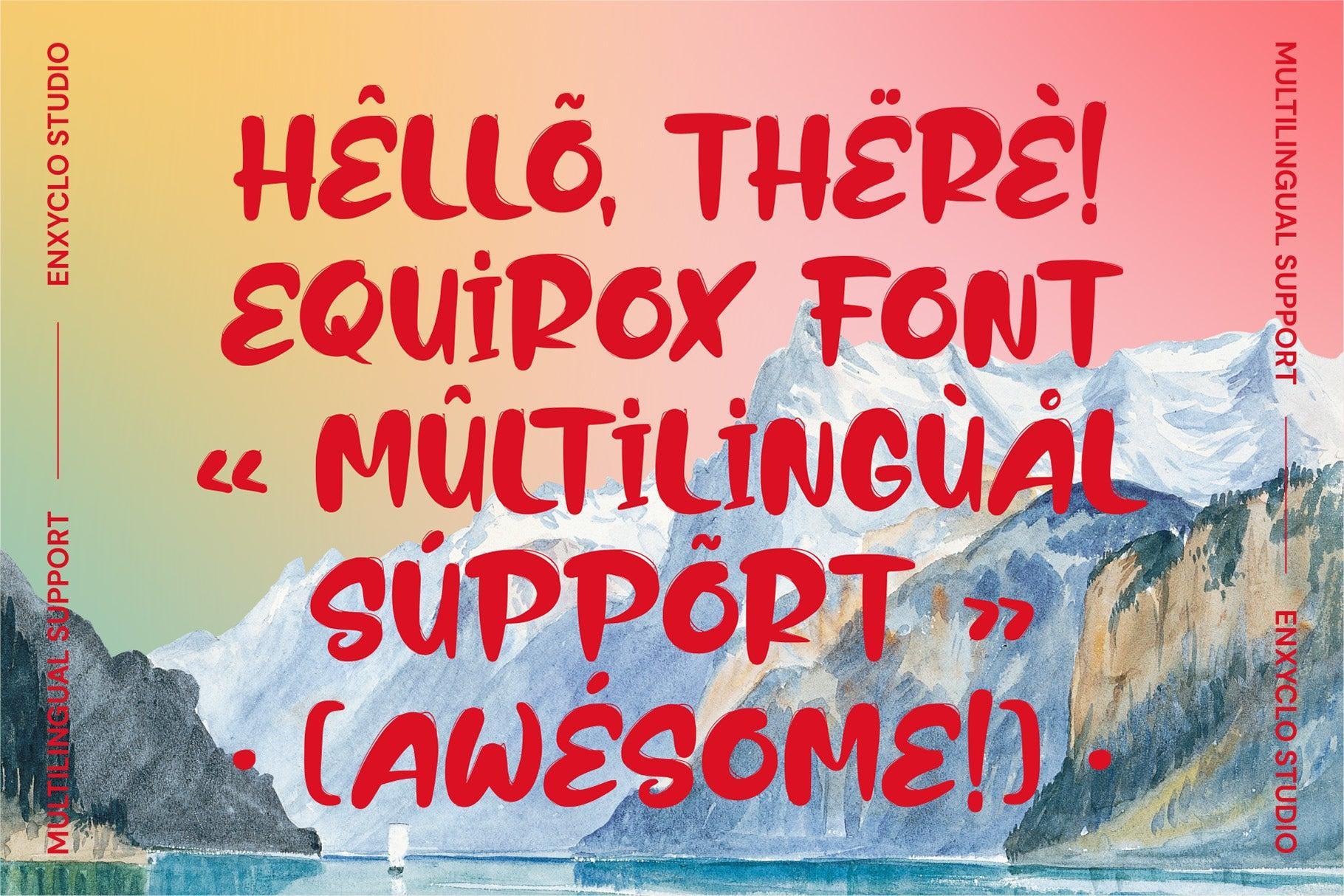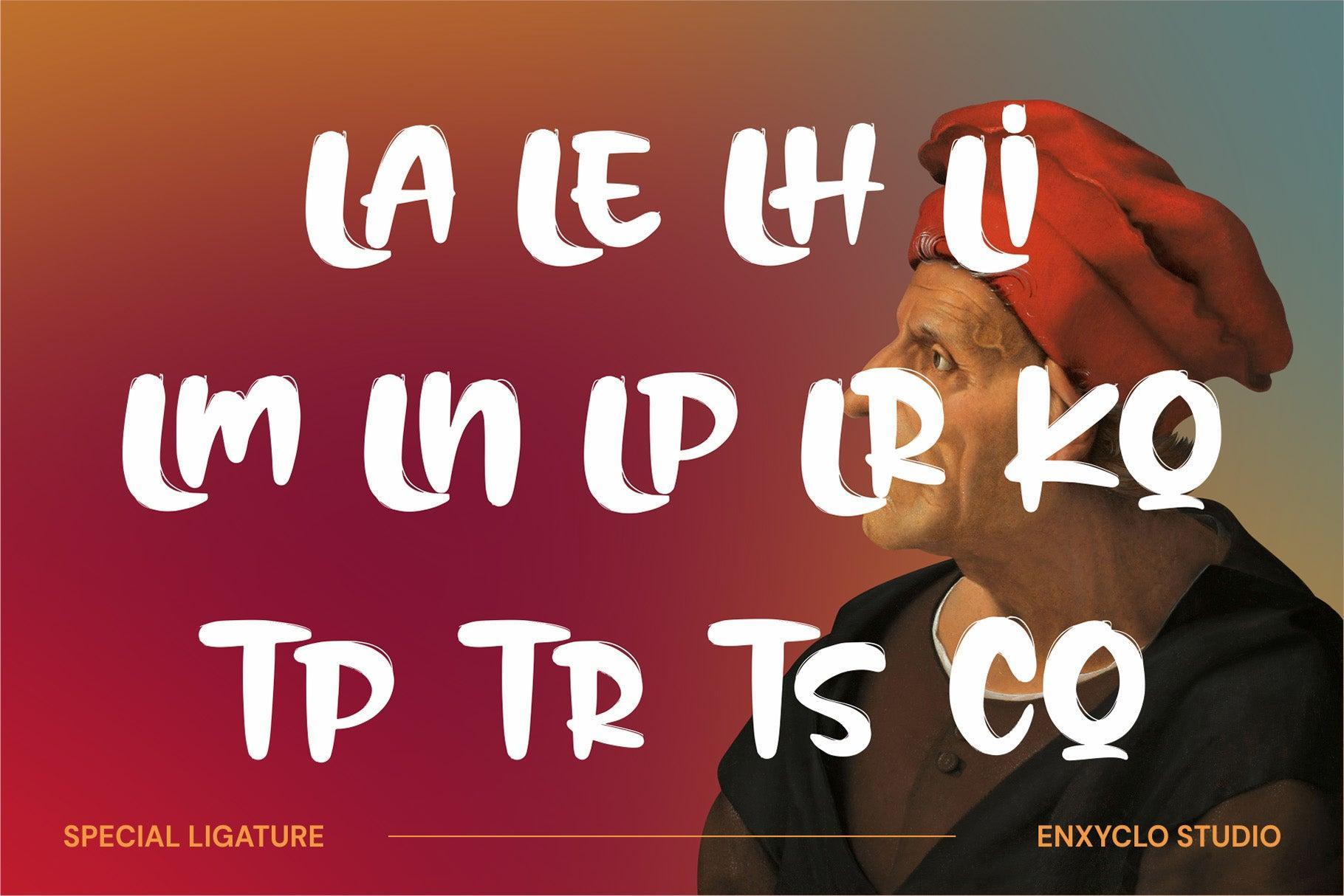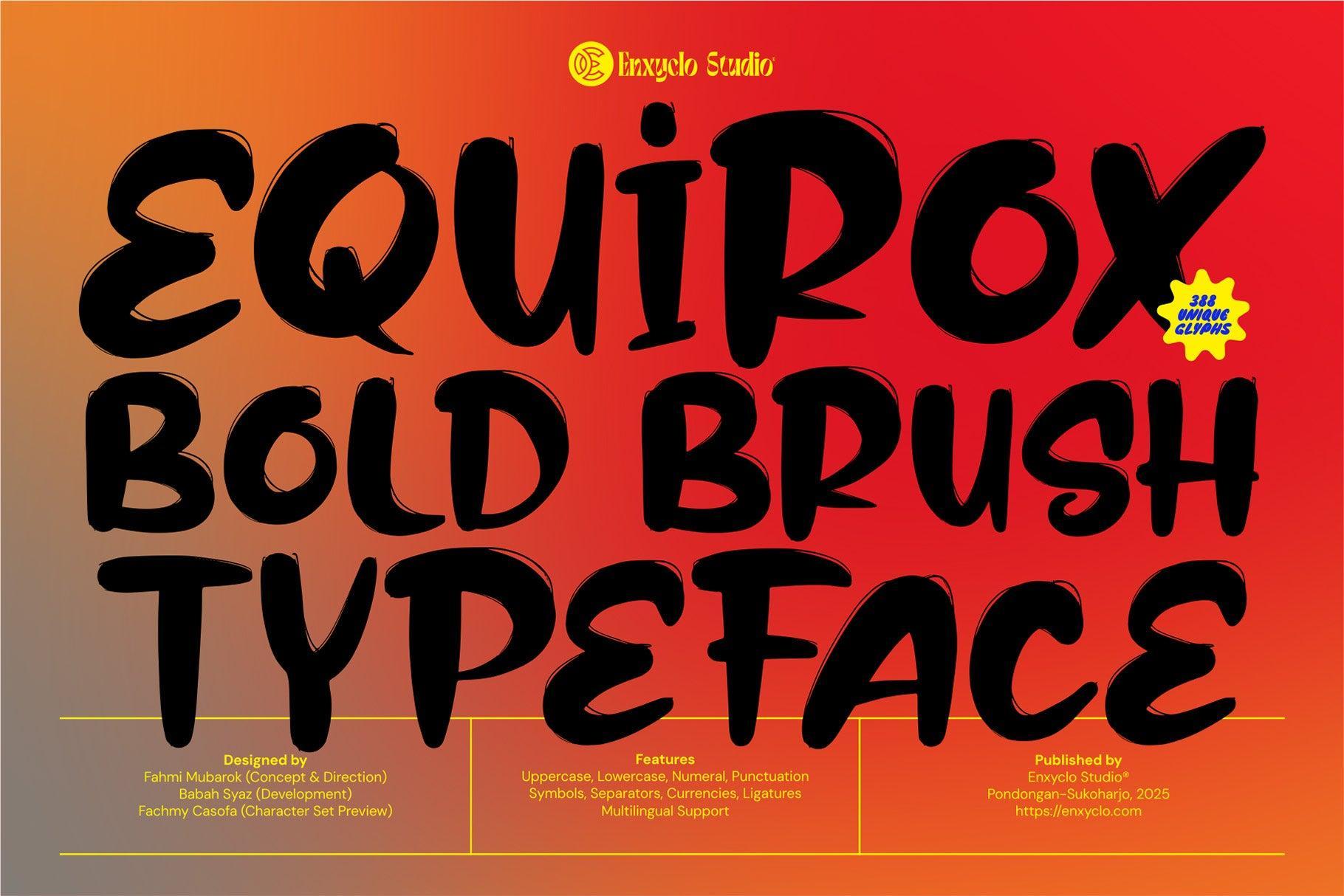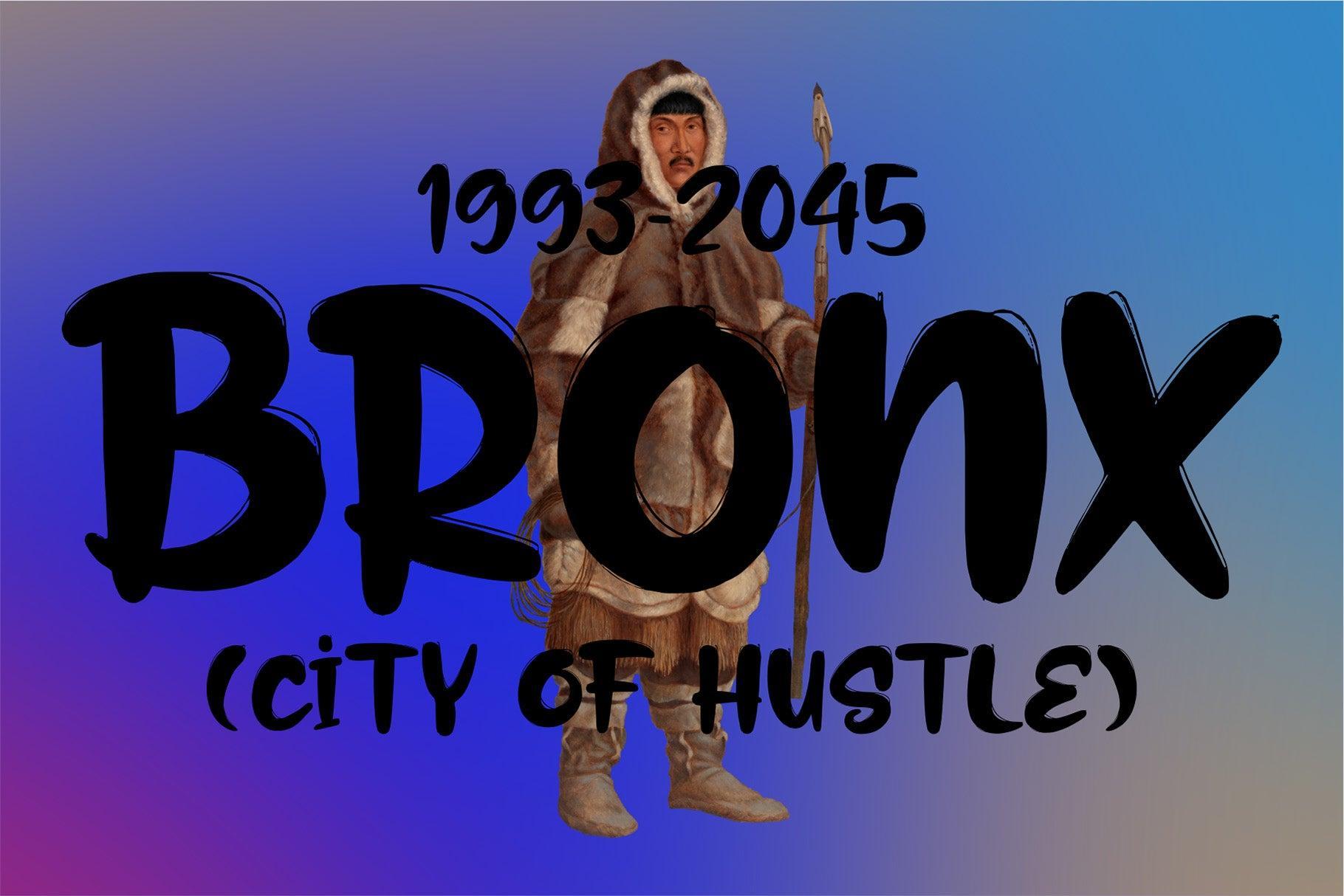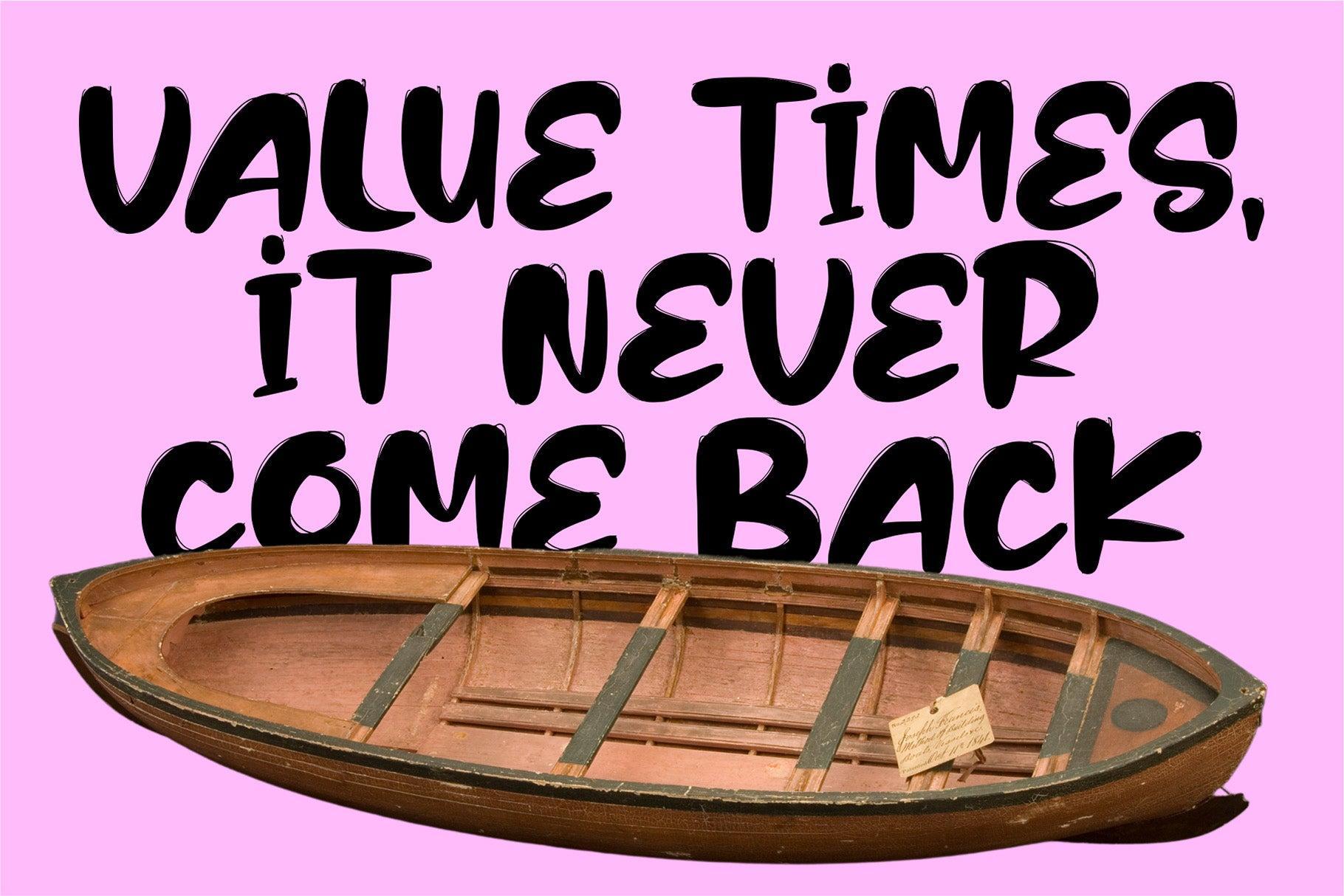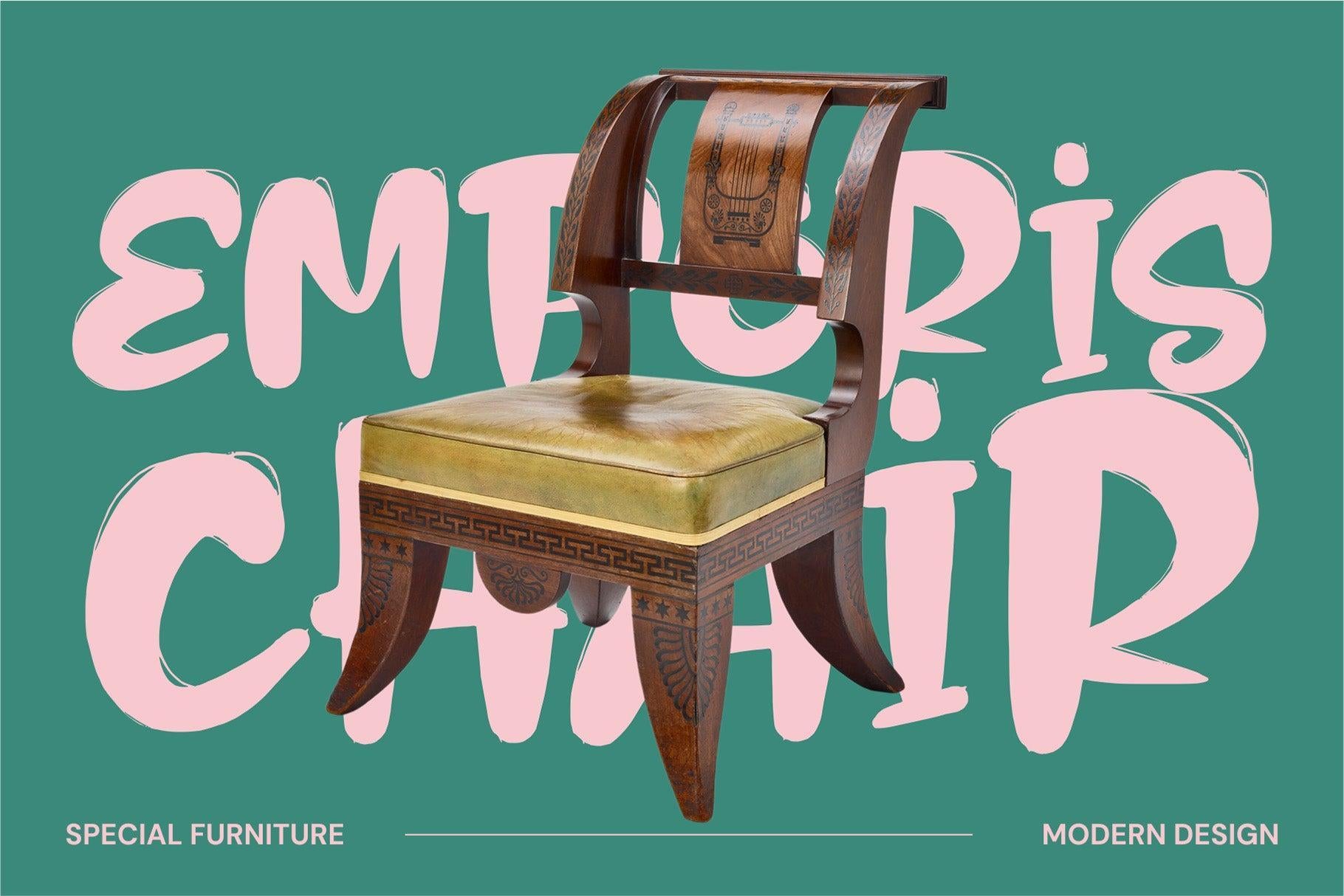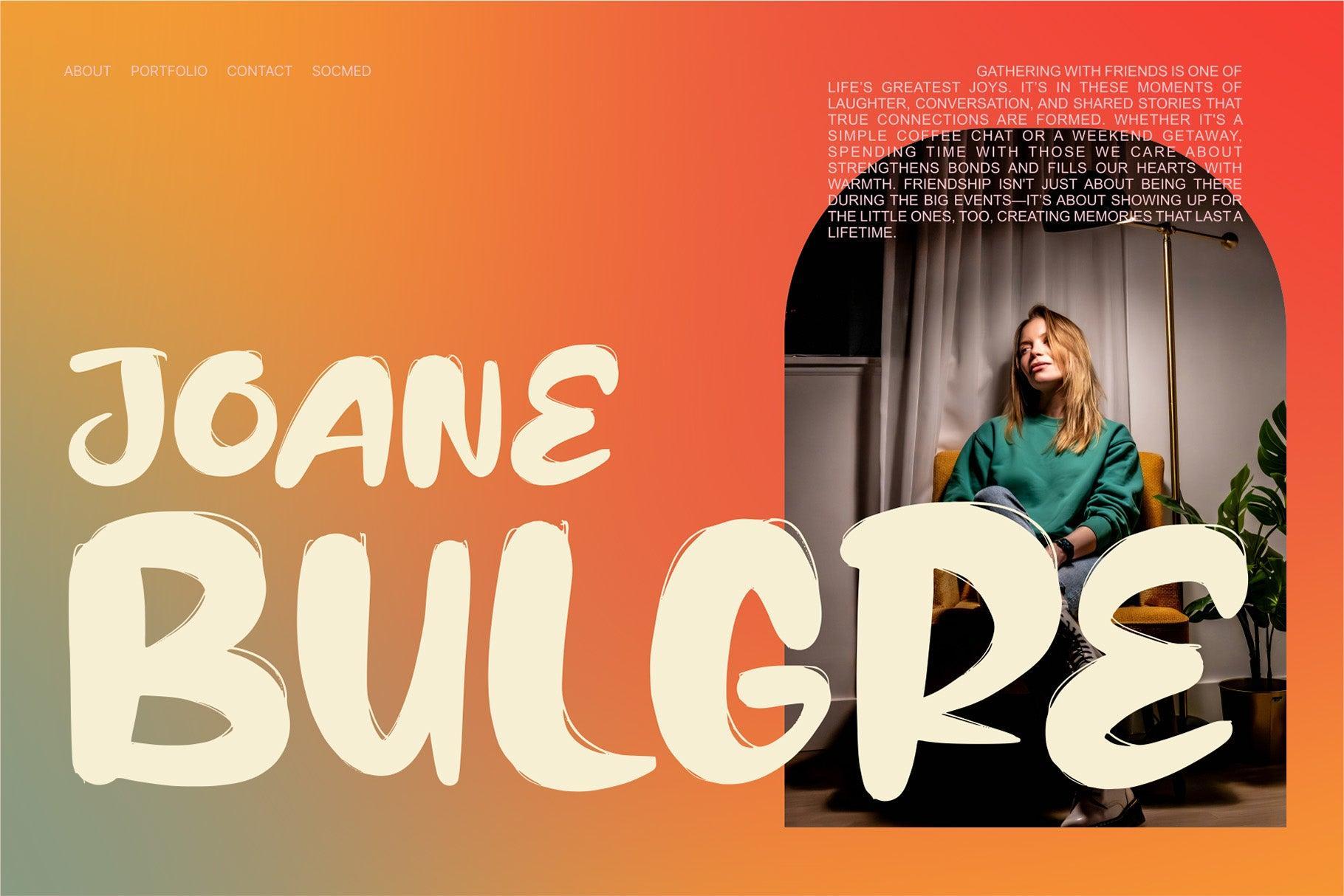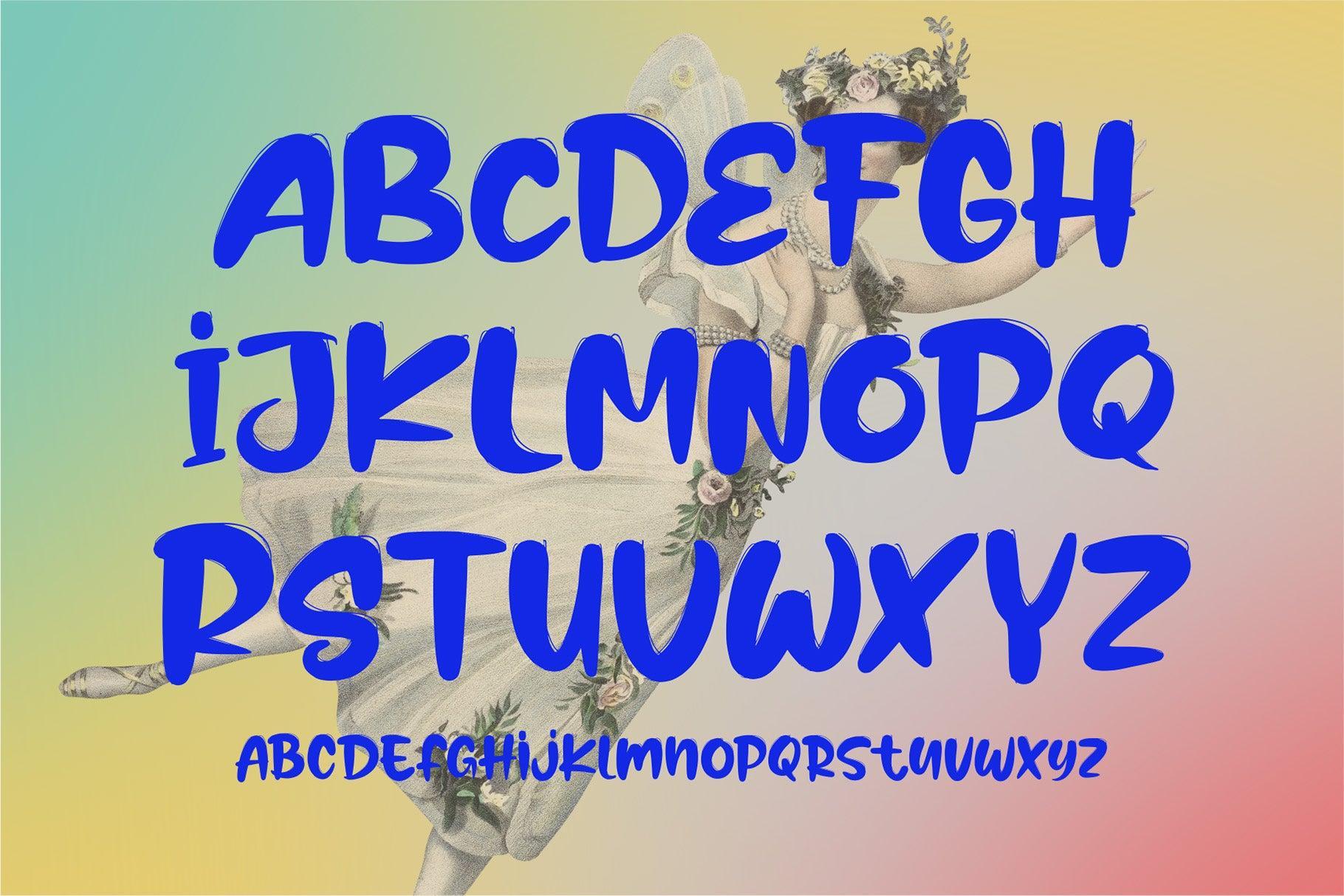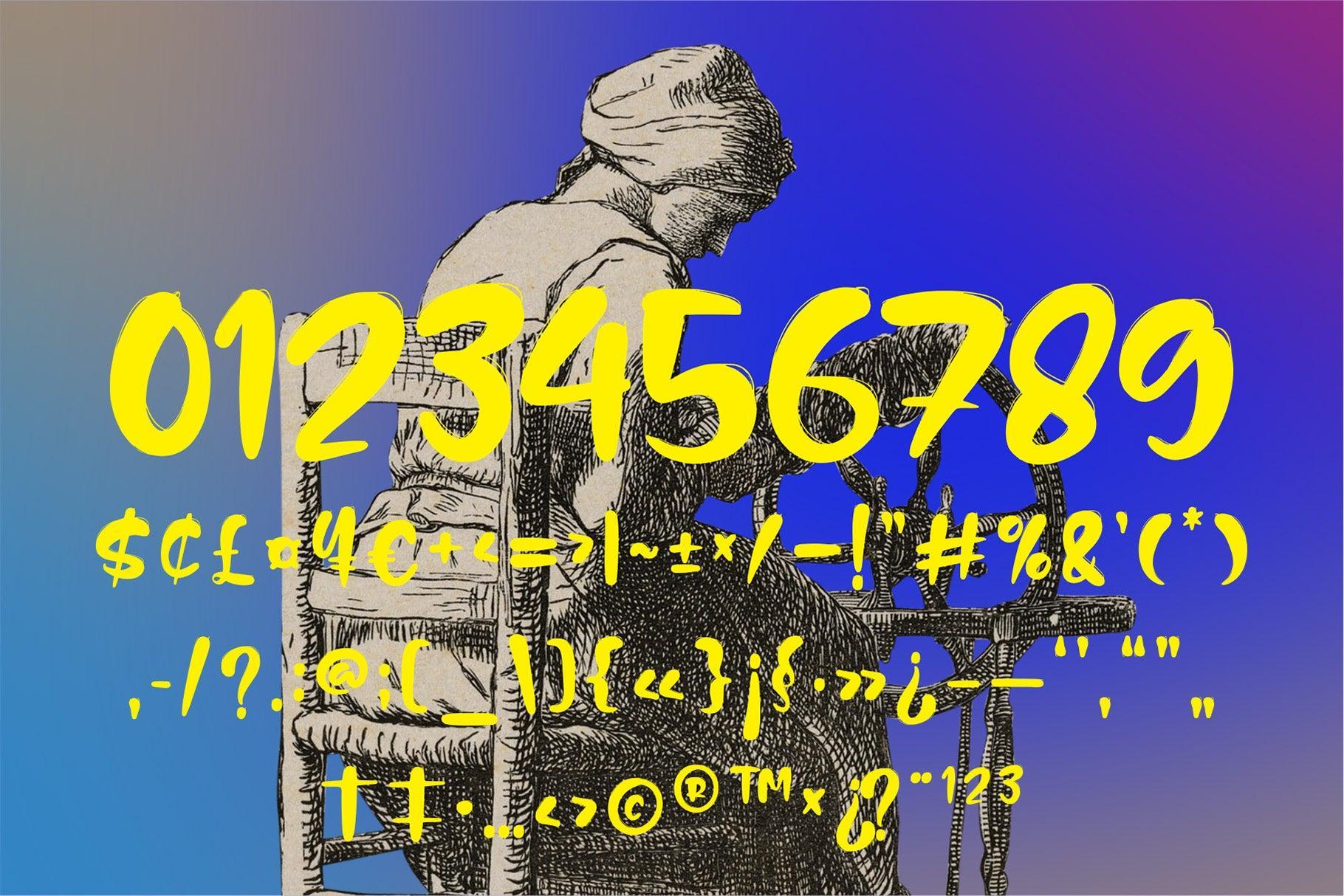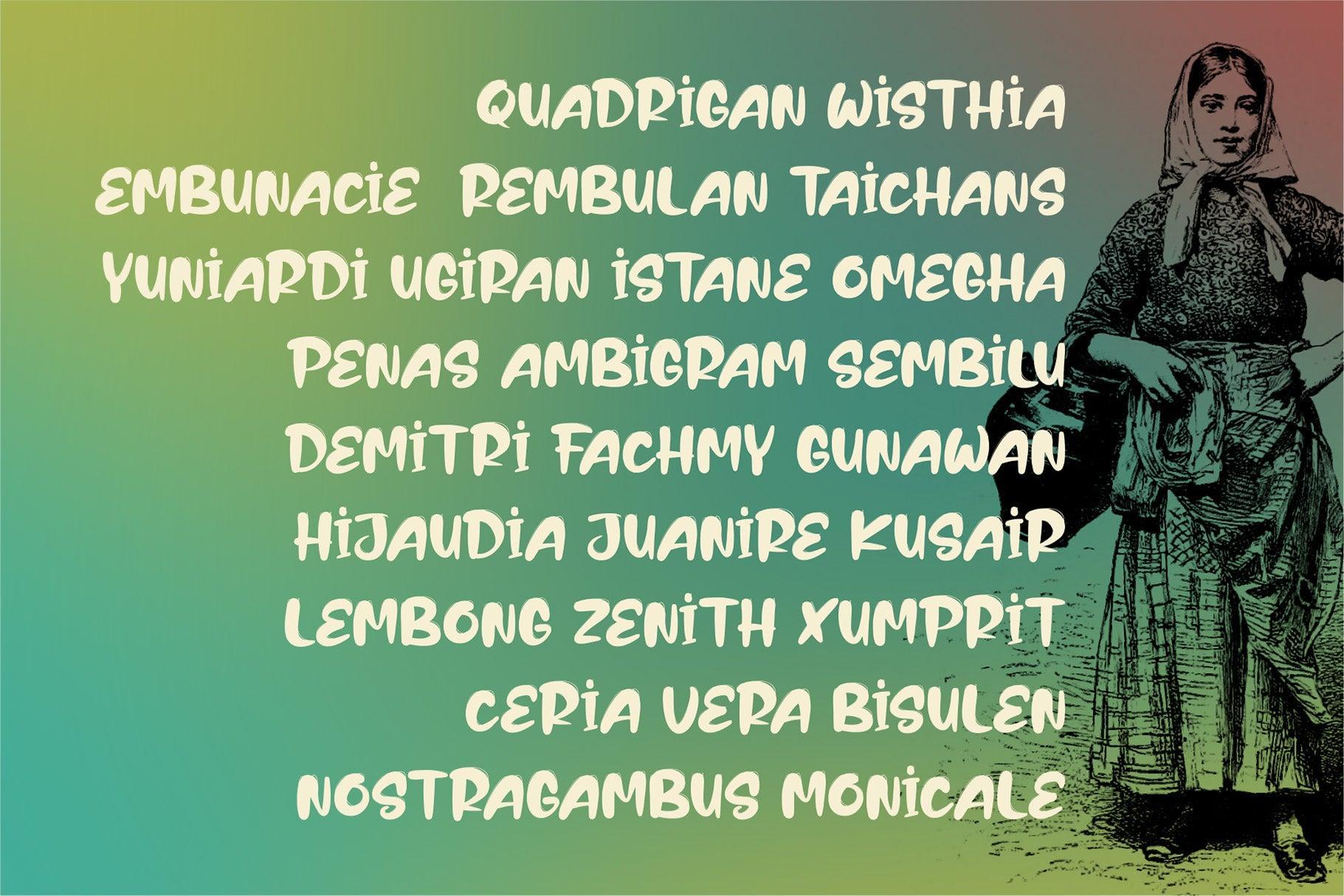
Equirox - Bold Brush Font
Equirox - Bold Brush Font is a dynamic font featuring a rich brush style, designed for versatility in various design applications. It includes 388 unique glyphs, complete uppercase and lowercase character sets, numerals, punctuation marks, special ligatures, and multilingual support, available in OTF, TTF, and WOFF formats.
Ideal for modern branding and expressive graphic design. Perfect for logos, posters, social media content, and creative product packaging, ensuring a bold and dynamic visual impact that captures attention.